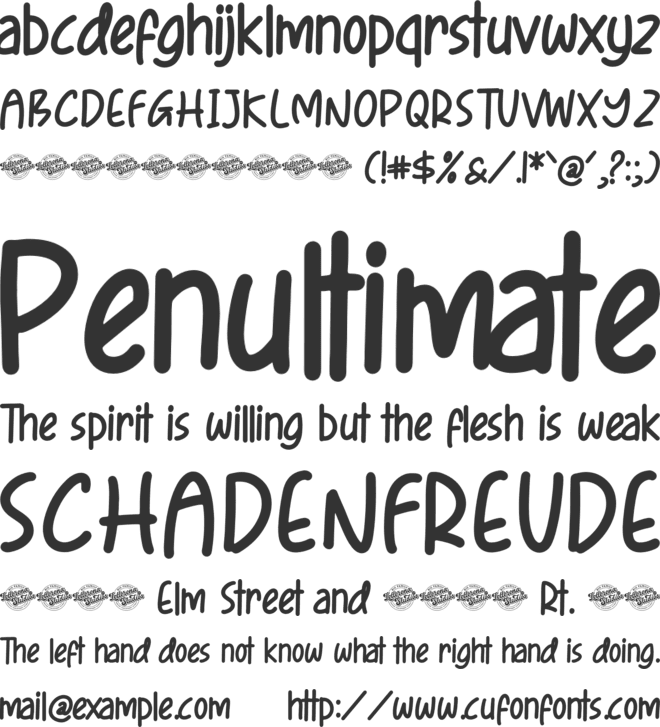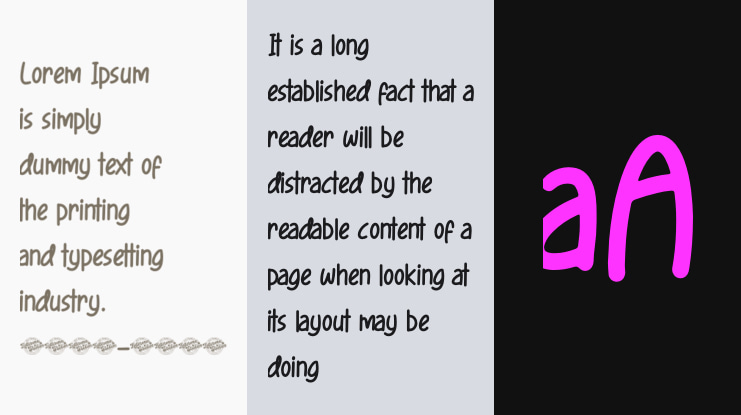
Play Sketch - Playful Kids Font
Inject instant energy and authentic hand-drawn appeal into your next project with Play Sketch - Playful Kids Font. This charming display typeface captures the raw, cheerful imperfection of hand-drawn lettering, offering a vibrant personality that instantly disarms and engages. Its rounded, chunky construction suggests a sense of nostalgic simplicity, making it ideal for creatives seeking to communicate joy, warmth, and genuine human connection through their typography.
Achieve maximum creative flexibility with an expansive character set designed for dynamic composition. Play Sketch - Playful Kids Font includes two distinct styles, 29 specialized ligatures, and 35 alternates, providing crucial OpenType features that allow designers to customize letter pairings and avoid monotonous repetition. These integrated features ensure that the playful, handcrafted aesthetic remains believable and highly functional across large-scale headers and smaller secondary text elements, guaranteeing design versatility.
Break through language barriers and connect with audiences globally, maximizing your market penetration. With its extensive multilingual support, Play Sketch - Playful Kids Font adapts seamlessly across global markets, making it incredibly versatile for international projects. This robust linguistic capability ensures your brand's cheerful message translates perfectly, maintaining its unique style whether used in European, Latin American, or other global publishing contexts, affirming its value as a powerful commercial asset.
Perfectly engineered for immediate engagement and visual delight, Play Sketch - Playful Kids Font is the ultimate choice for branding focused on youthful audiences. It is ideal for children’s branding, educational materials, storybook titles, casual consumer product packaging, greeting cards, and social media graphics that require a friendly, approachable voice. Elevate your visual identity instantly by integrating this exceptionally fun and professional typeface, guaranteeing high engagement and positive brand recall.